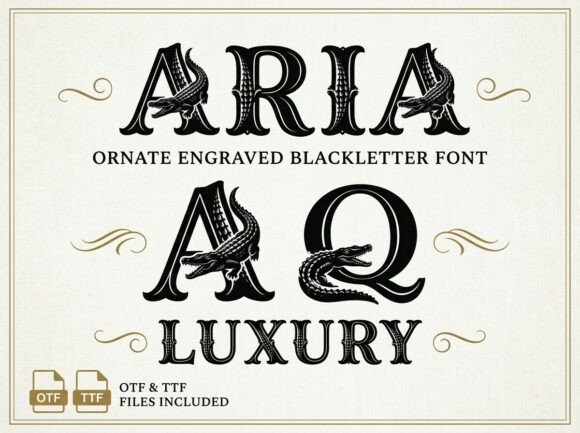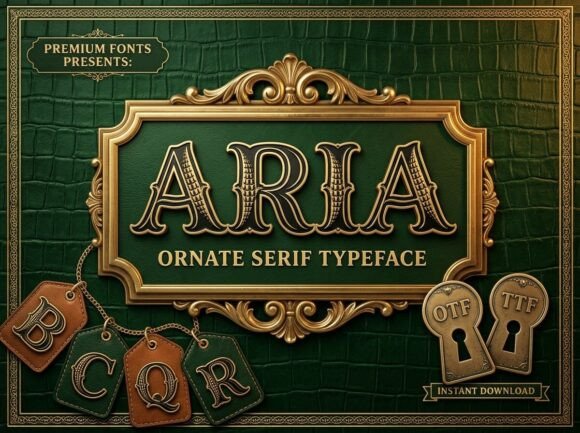
Introducing Aria Font: A Stunning Decorative Display Font
Are you tired of using the same old fonts for your designs? Look no further than Aria Font, a breathtaking decorative display font that’s sure to turn heads. With its unique artistic elements and strong visual personality, this font is perfect for creators who want to break away from the ordinary and make a statement.
What Makes Aria Font Special?
Aria Font is a versatile and eye-catching font that’s designed to be the center of attention. Its distinctive style makes it ideal for bold headlines, artistic logos, and creative packaging, while maintaining a professional and polished finish. Whether you’re a designer, craftsperson, or DIY enthusiast, Aria Font is the perfect choice for anyone looking to add a touch of elegance and sophistication to their work.
⚠️ Before you purchase, please note that Aria Font is an ALL-CAPS (Uppercase Only) display typeface. This means that it does not include lowercase letters. It’s specifically designed for high-impact headlines, logos, and decorative initials where every letter is a work of art.
This unique design feature allows for maximum visual impact and makes Aria Font perfect for use in:
- Headlines and titles
- Decorative initials and lettering
- Packaging and labeling
Why Choose Aria Font?
There are many reasons why Aria Font stands out from the crowd:
- Unique and artistic design: Aria Font features a one-of-a-kind design that’s sure to grab attention.
- Professional and polished finish: Despite its decorative nature, Aria Font maintains a professional and polished finish that’s perfect for use in a variety of applications.
- Versatility: Aria Font can be used in a range of projects, from graphic design and digital art to crafting and DIY projects.
Tips for Using Aria Font
Here are a few tips for getting the most out of Aria Font:
- Use it sparingly: Due to its bold and eye-catching design, it’s best to use Aria Font sparingly to maximize its impact.
- Pair it with complementary fonts: Aria Font pairs well with simpler fonts that can help to balance out its bold design.
- Experiment with different sizes and colors: Don’t be afraid to experiment with different sizes and colors to find the perfect combination for your project.